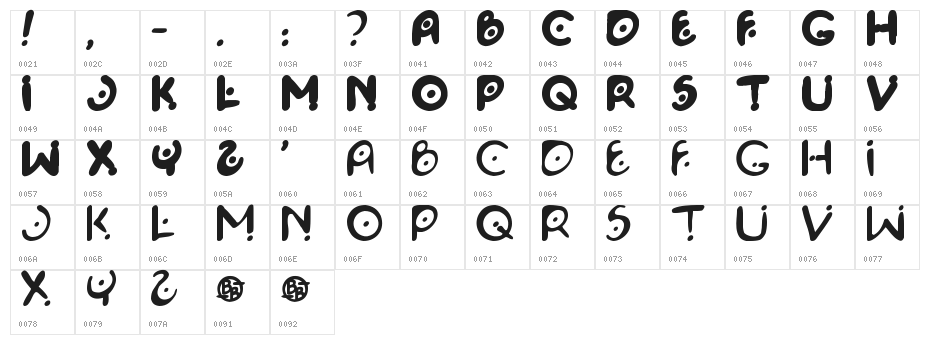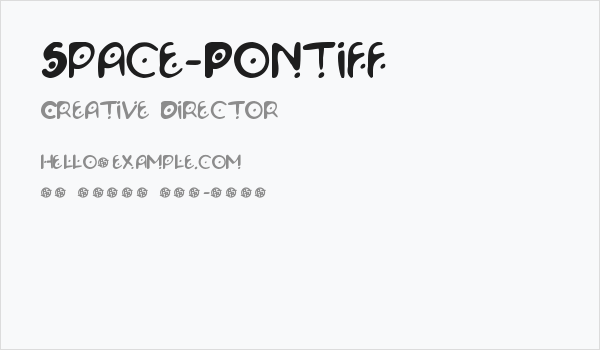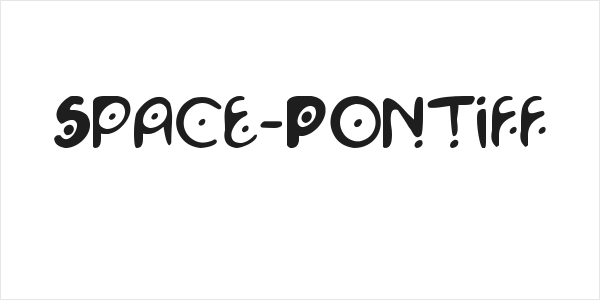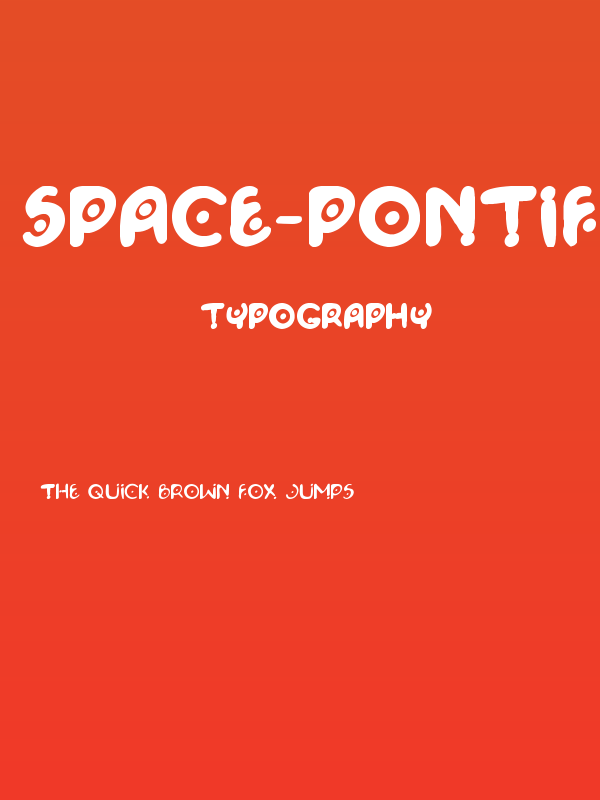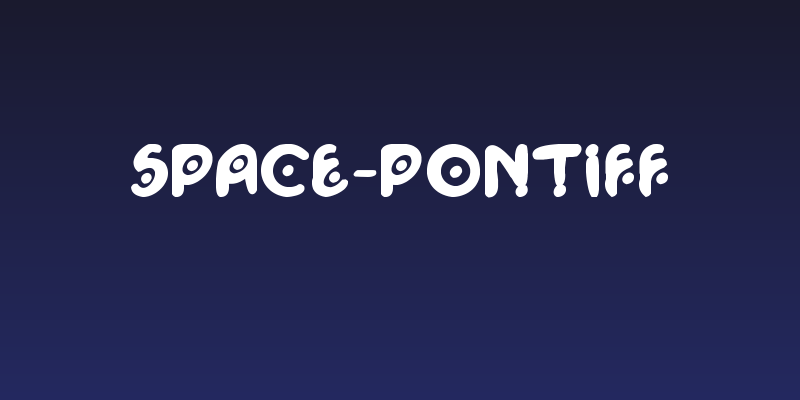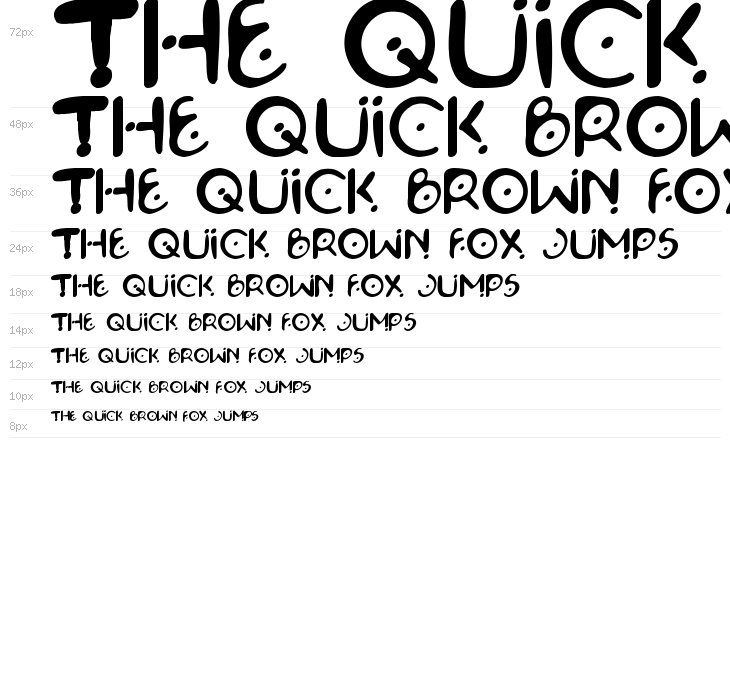
Space-Pontiff Font
Space-Pontiff Description
This font features a bold and playful design with rounded, bulbous forms and unique dot accents on certain characters. The letters are thick and have a whimsical, almost cartoonish appearance, making them stand out with a strong visual impact. The uppercase and lowercase letters maintain a consistent style, with some characters incorporating unexpected curves and loops that add to the font's quirky charm. The numbers and special characters follow the same design principles, ensuring a cohesive look across all glyphs. This font's distinctive style makes it suitable for creative and fun projects.
| Proposed Projects | Ideal for children's books, playful branding, posters, and creative design projects. |